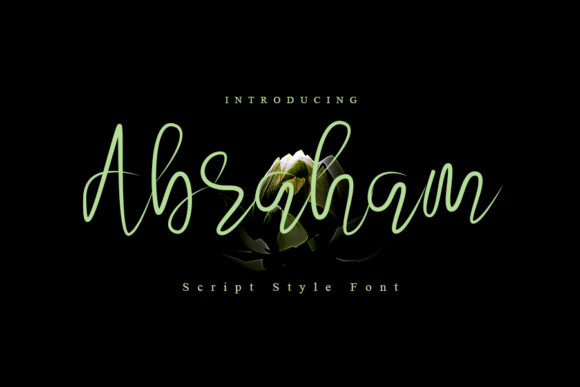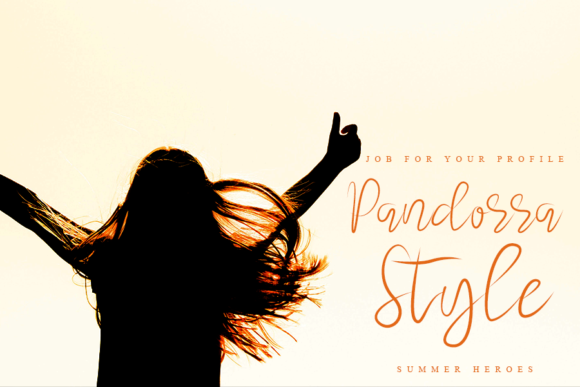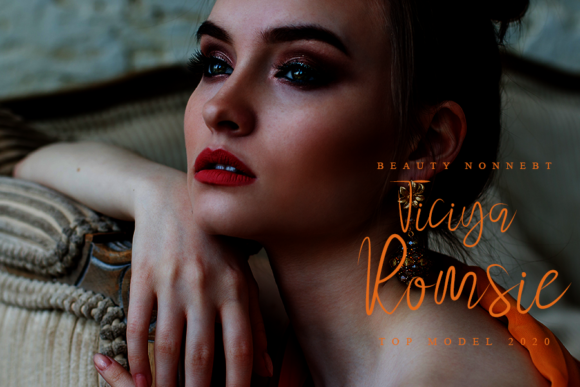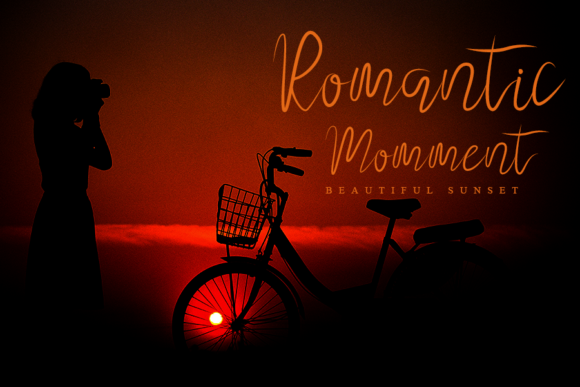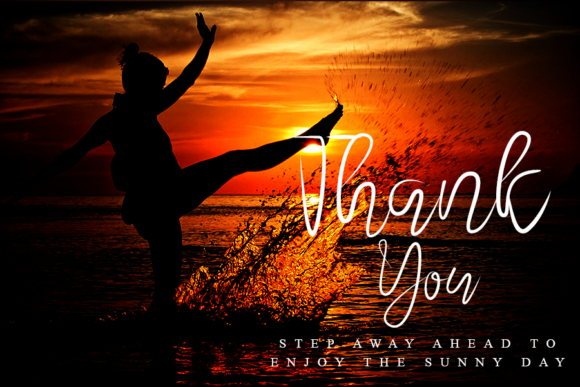
Abraham Font
About Abraham Font
Abraham is a cute and casual handwritten font with an incredibly friendly feel. It’s inspired by classic typography and brings its own unique style to any design project. It will elevate a wide range of design projects to the highest level, be it branding, headings, wedding designs, invitations, signatures, logos, labels, and much more!